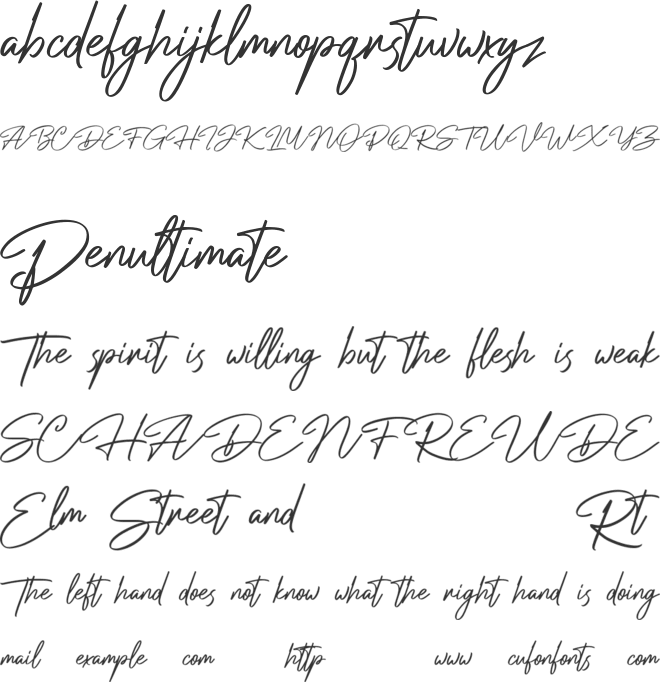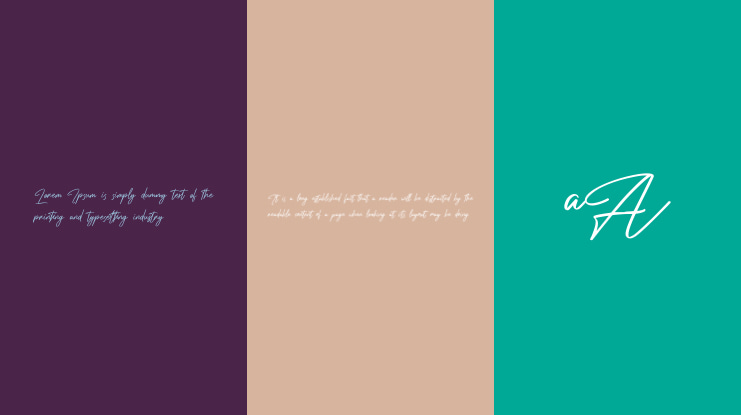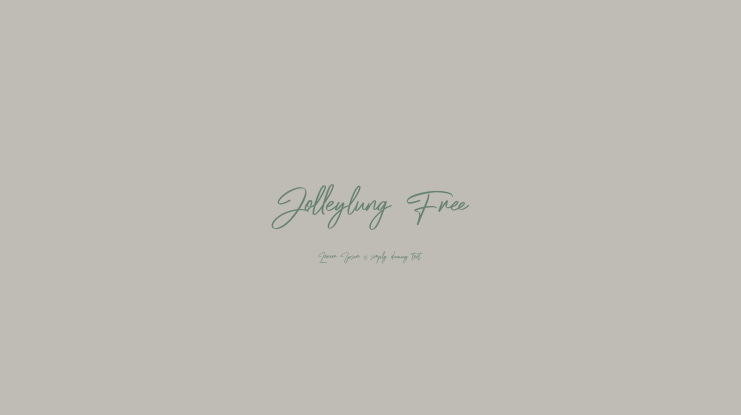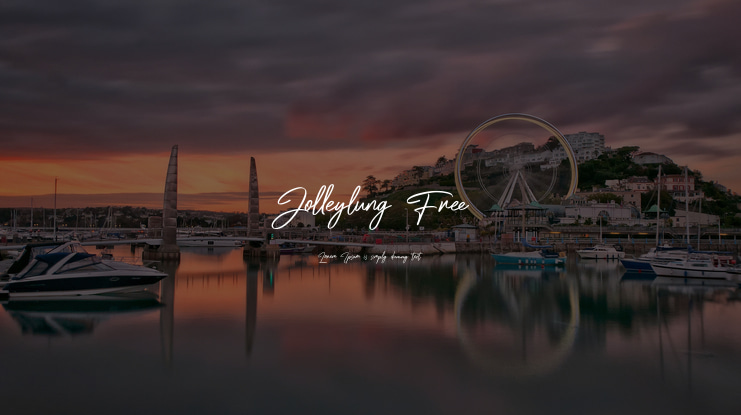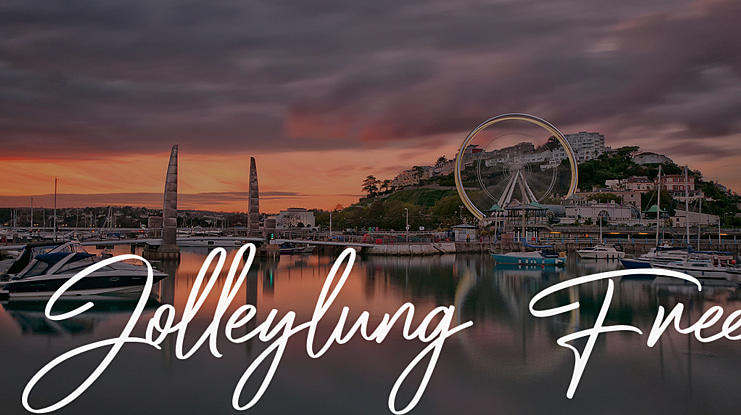
Jolleylung Free Font
This is an excellent handwritten script typeface. A stylish and sophisticated font with its own unique curves and grooves that looks elegant. It has Opentype features ligatures of character, To give you an extra creative work. Jolleylung signature font support multilingual more than 100+ language. This font is good for logo design, Social media, Movie Titles, Books Titles, a short text even a long text letter and good for your secondary text font with sans or serif. Make a stunning work with Jolleylung font.